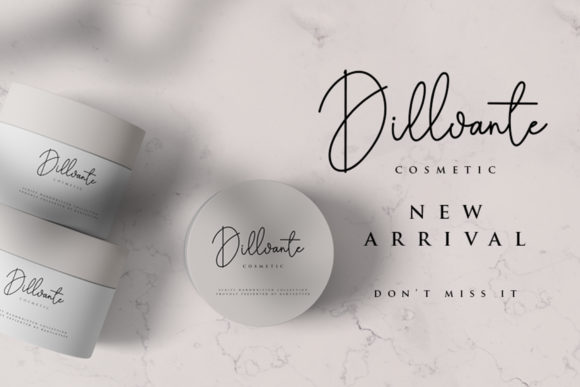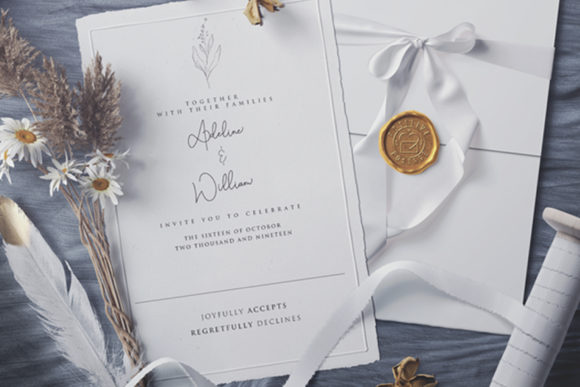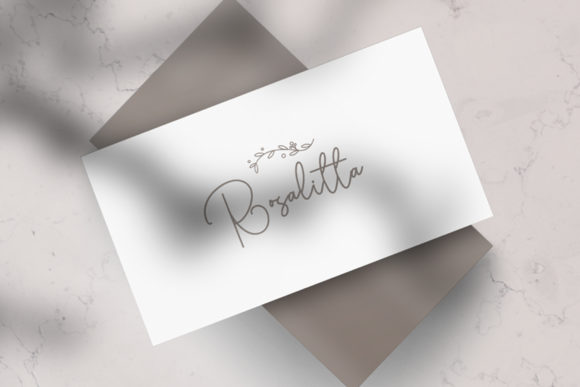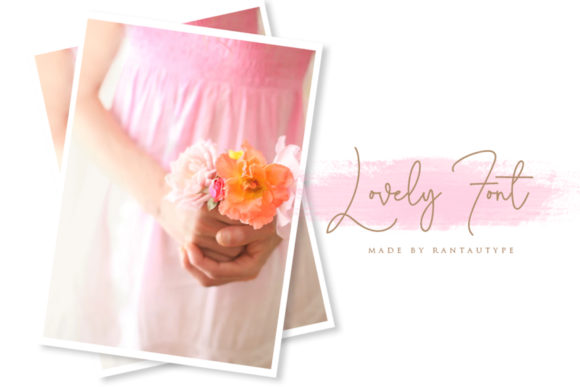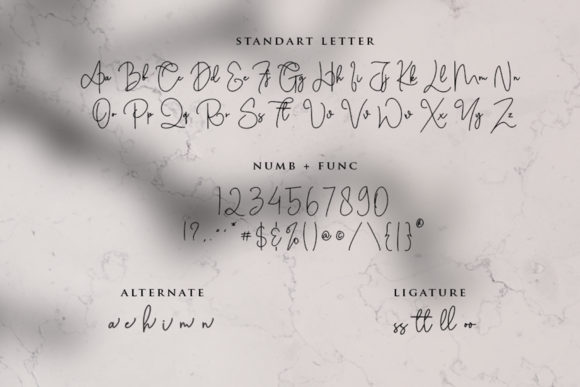
Introduction to Cothelina Font
Have you ever stumbled upon a design element that sparks pure inspiration, making you want to create something extraordinary? For designers, moments like these are what drive us to push the boundaries of our creativity. One such moment could be discovering the Cothelina Font – a charming and sophisticated script that will turn any design project into a true standout.
Imagine having a high-quality, versatile font at your fingertips, perfect for adding a touch of elegance to your creative project. With Cothelina Font, you’ll have access to a wide range of design possibilities, from invitations to branding materials. Its transparent background makes it easy to customize and integrate into your designs, while its free download option means you can get started right away.
Whether you’re a seasoned designer or just starting out, Cothelina Font is a valuable resource that will elevate your designs to the next level. In this article, we’ll delve into the world of this incredible font and explore its features, benefits, and uses in various design projects.
Key Features of Cothelina Font
- High-quality, vector-based font ideal for creative projects and designs
- Transparent background, making it easy to use on any design surface
- Designed with a unique, elegant style that sets it apart from other fonts
- High-resolution design, suitable for printing and digital use at 300 DPI
- Perfect for designers and artists working on a wide range of creative projects, from logos to graphics and more
Honest Review: Cothelina Font
As a designer, I’m always on the lookout for high-quality design resources to enhance my creative projects. Recently, I stumbled upon the Cothelina Font, and I must say, it’s a gem.
- ✨ Elegant and refined design aesthetic
- ✨ Wide range of font styles and weights
- ✨ High quality, clear, and readable even at smaller sizes
- ⚠️ Limited support for non-Latin scripts
- ⚠️ No transparent background option, which can make it challenging to use on images or videos
Overall, the Cothelina Font is a solid addition to any designer’s toolkit. Its elegant design and high-quality output make it perfect for a wide range of creative projects, from print materials to digital interfaces. While it may have some limitations, the benefits far outweigh the drawbacks.
Tips for Getting the Most Out of Cothelina Font
For a high-quality design, use the Cothelina Font with a transparent background to create a clean and modern look. Experiment with different font sizes and styles to add depth to your design.
The Cothelina Font is ideal for various creative projects, including logos, social media graphics, and presentations. Its versatility makes it a great design resource for both personal and professional use.